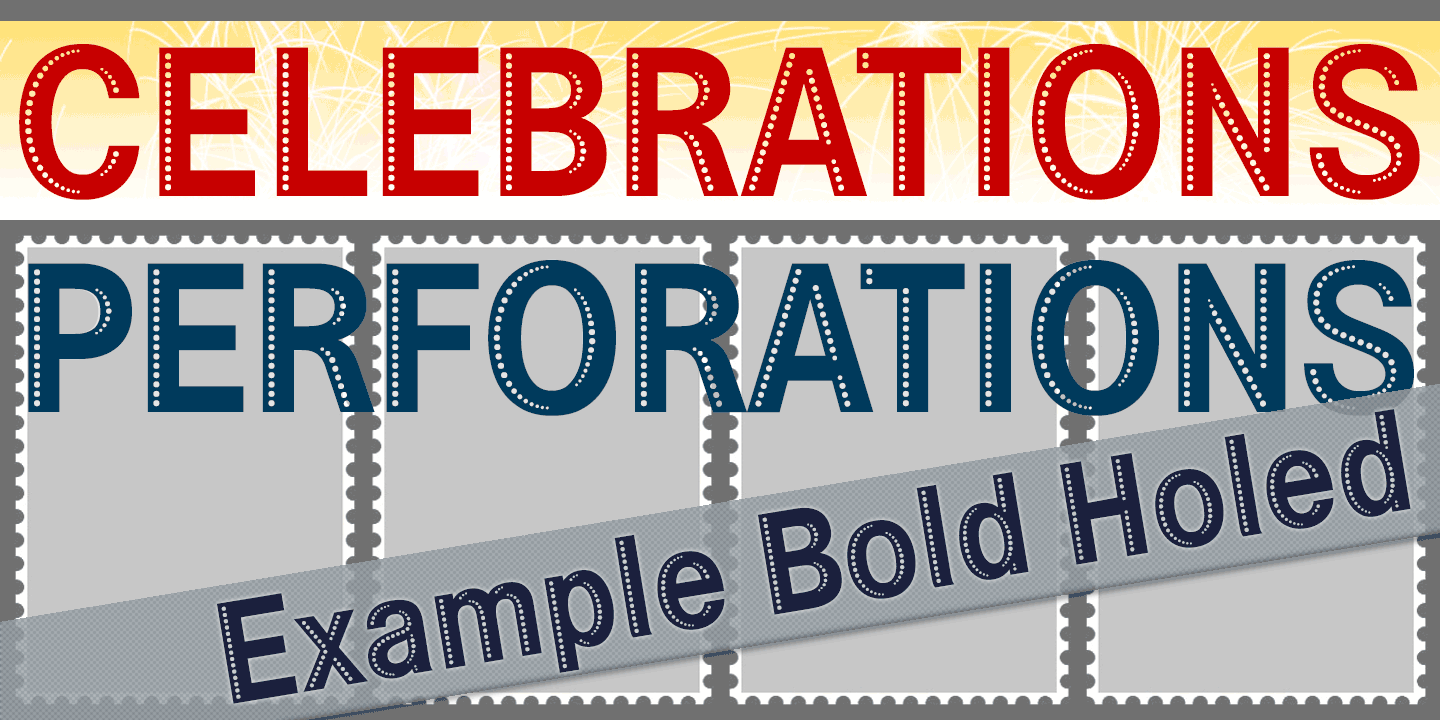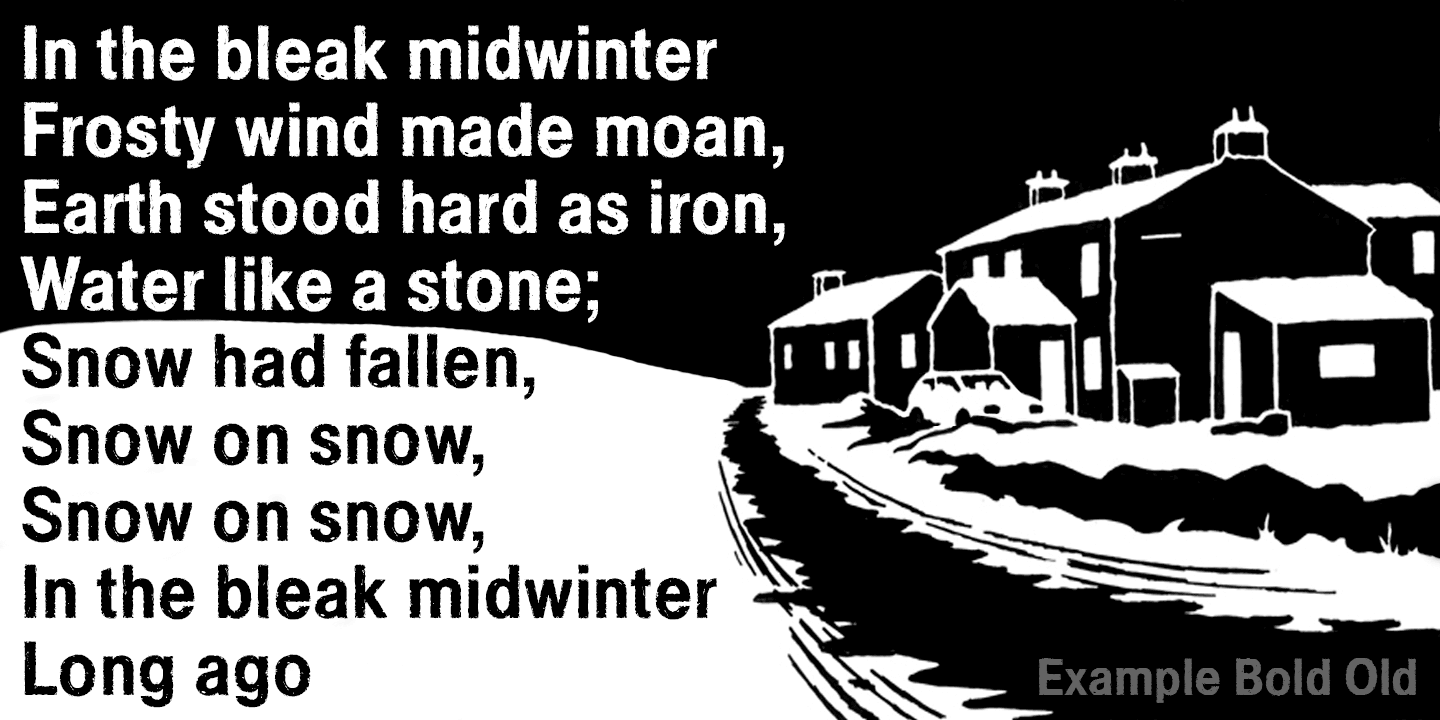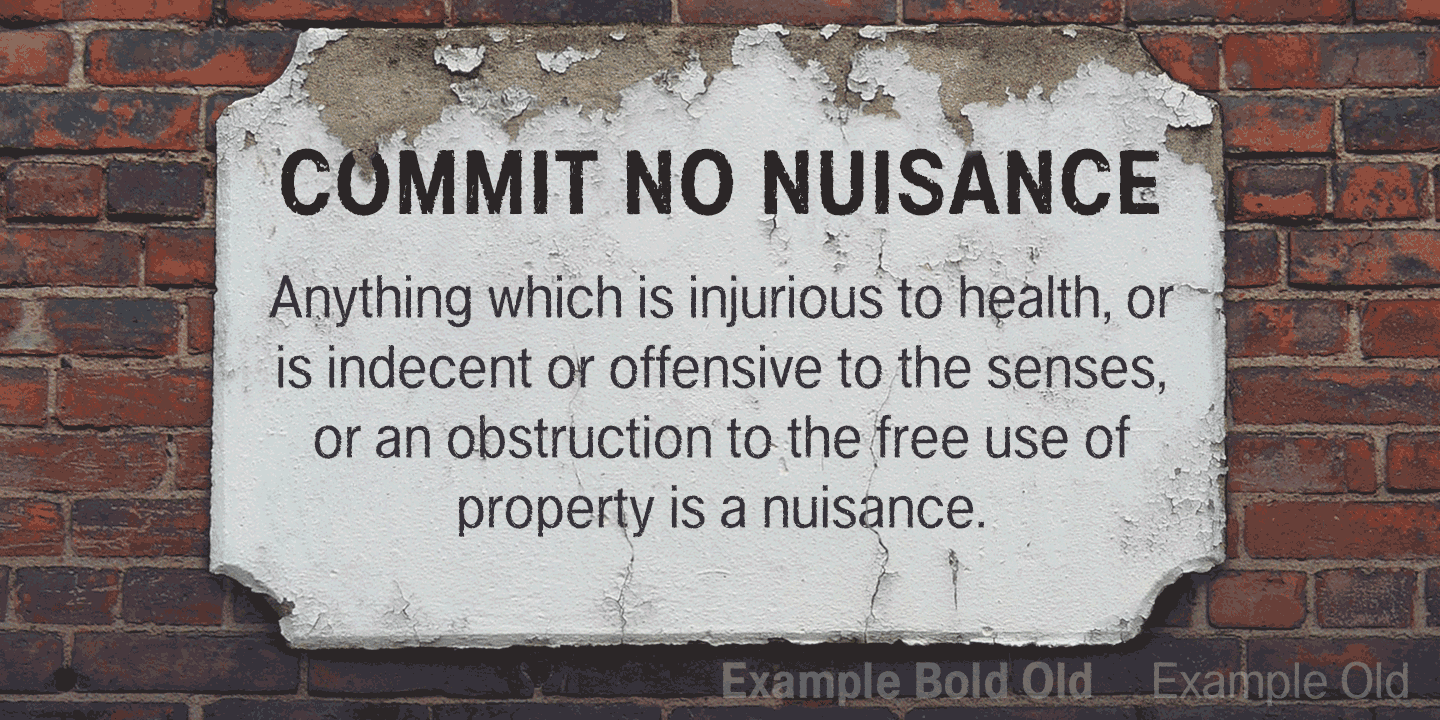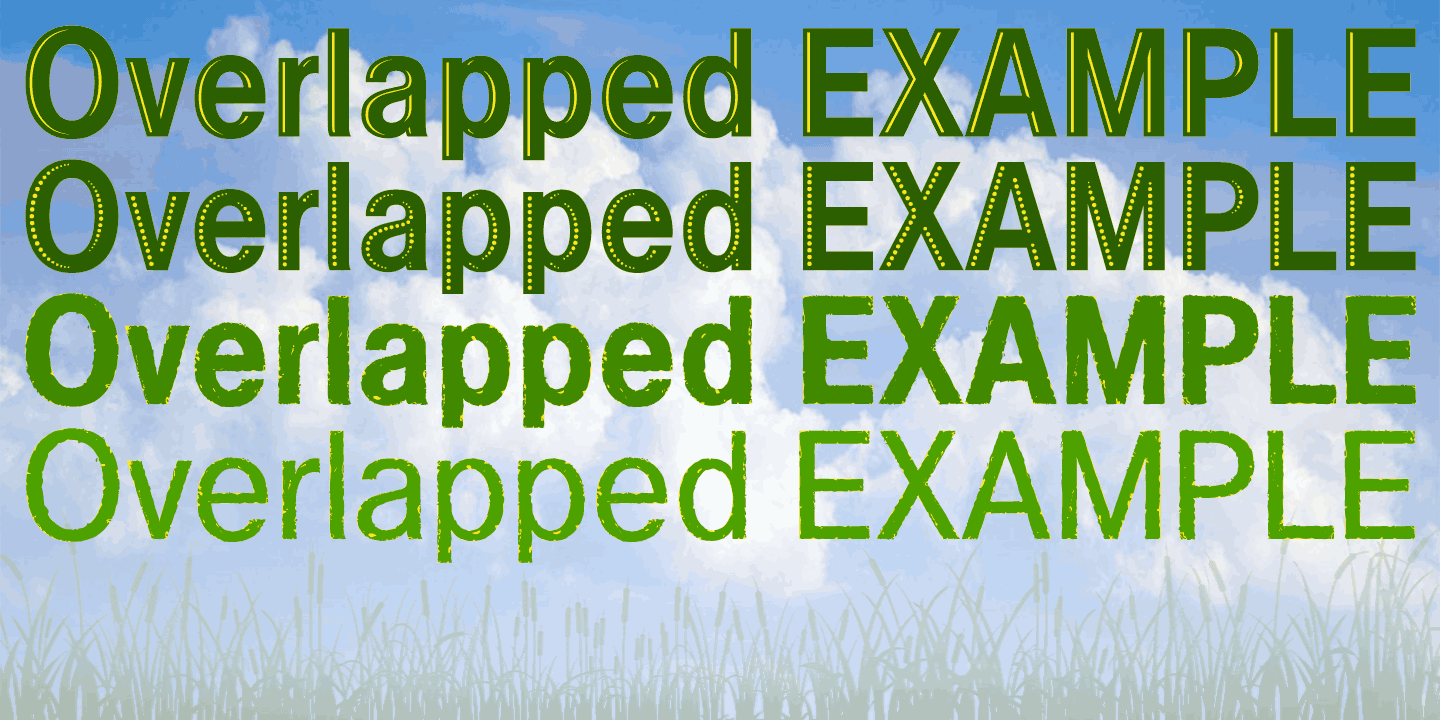
Example is a workhorse neo-grotesque, an alternative for those seeking an ageless sans but wishing to avoid the ordinary choices. The basic weights are clean, handsome and economically proportioned ? characters are not as wide as Helvetica, though not…